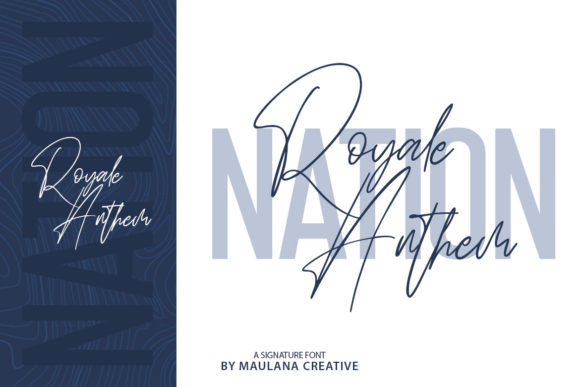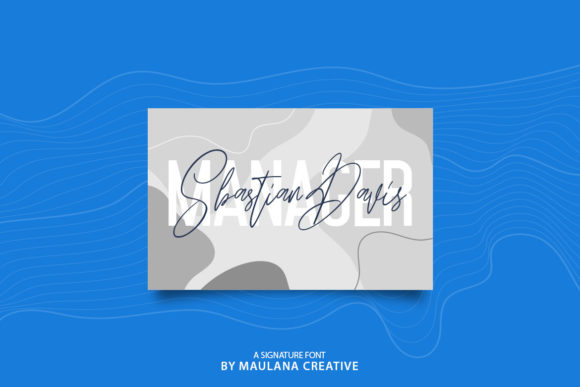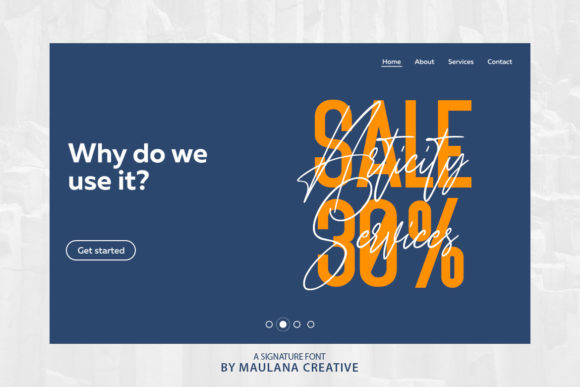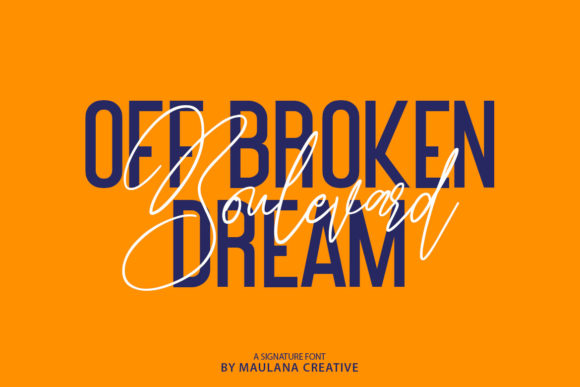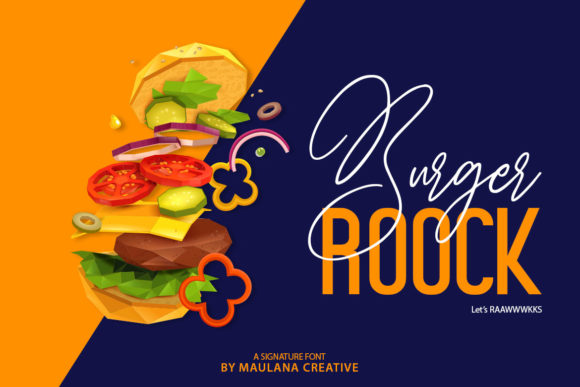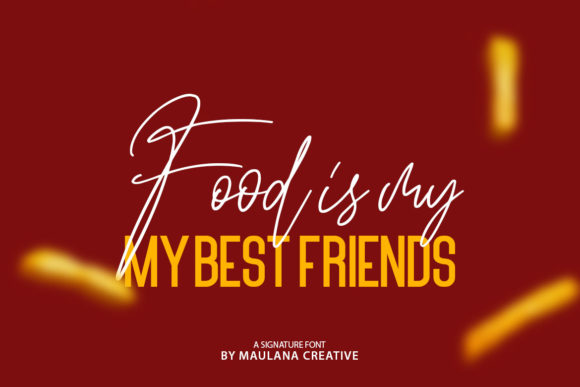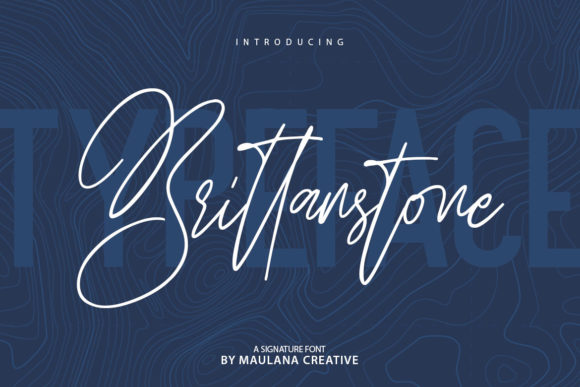
The Magic of Brittanstone Duo Font: A Designer’s Delight
I’ll never forget the moment I stumbled upon the Brittanstone Duo Font. I was working on a project for a client who wanted a elegant and authentic feel, but I was struggling to find the right font combination. That’s when I discovered Brittanstone – a unique font duo that brings together a beautiful script and a clean sans serif font. It was love at first sight! 💕
- ✨ Elegant and authentic feel: Brittanstone feels light and airy, making it perfect for projects that require a touch of sophistication.
- ✅ Versatile: The font duo includes a script and a sans serif font that can be used together or separately.
- 💫 Unique: The combination of the script and sans serif fonts creates a unique look that’s hard to achieve with other font combinations.
While I adore Brittanstone, there are a few things to keep in mind: 🤔
- ⚠️ Limited use of all-caps: The script font is designed for titles and headings, and may not be suitable for body text.
- ⚠️ Some glyphs may not work well in smaller sizes: As with any font, it’s essential to test the glyphs and stylistic alternates at different sizes to ensure they work well.
The Story Behind Brittanstone
Brittanstone was designed by a team of typographers who wanted to create a unique font duo that would bring a touch of elegance and authenticity to any project. Inspired by classic calligraphy and modern typography, Brittanstone is the perfect combination of old and new.
Q: What is the difference between the script and sans serif fonts?
A: The script font is designed for titles and headings, while the sans serif font is perfect for body text. However, both fonts can be used together or separately to create a unique look.
Q: Is Brittanstone suitable for body text?
A: While Brittanstone can be used for body text, it’s recommended to use the sans serif font for longer blocks of text. The script font is better suited for titles and headings.